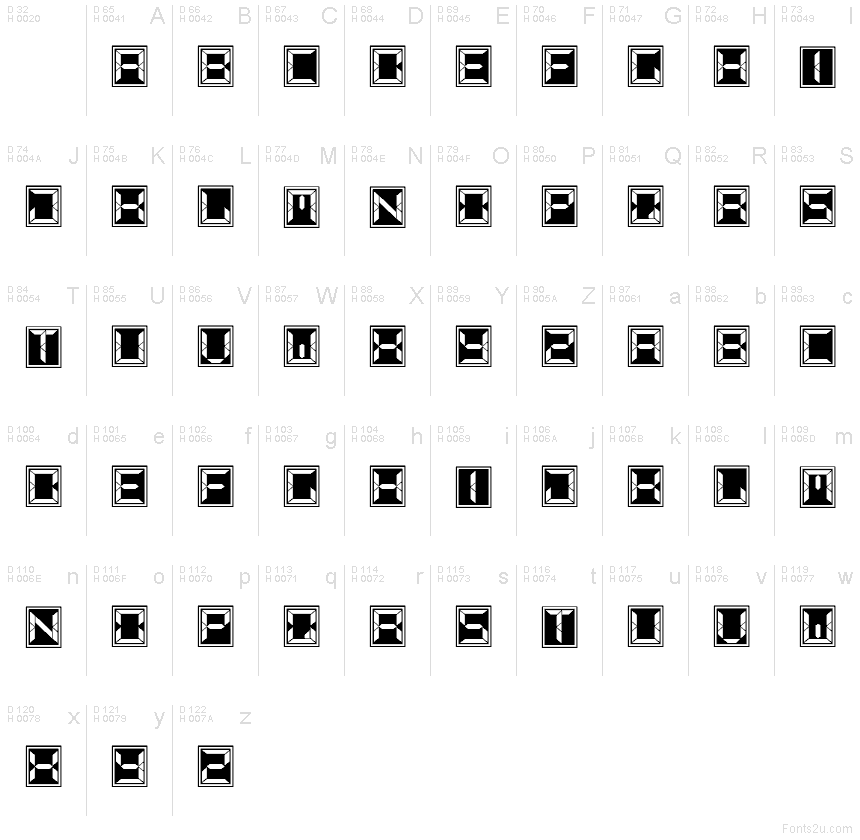
Catalyst Extravagant Regular
Catalyst Extravagant font by Vladimir Nikolic is an expanded display font full of energy and vigor. You are looking at a digital-style typeface that has futuristic, geometric, segmented, and digital-inspired characters. The high-tech vibe is real with this beast that also includes expanded letter strokes for even more power.
Catalyst Extravagant is a free display font you can utilize in science fiction design, technology businesses ads, automotive branding, magazine headlines, video games UI texts, posters with digital themes, logos & logotypes of related industries or organizations and infographic titles.